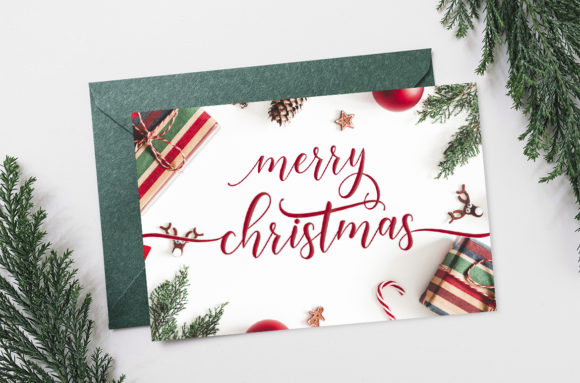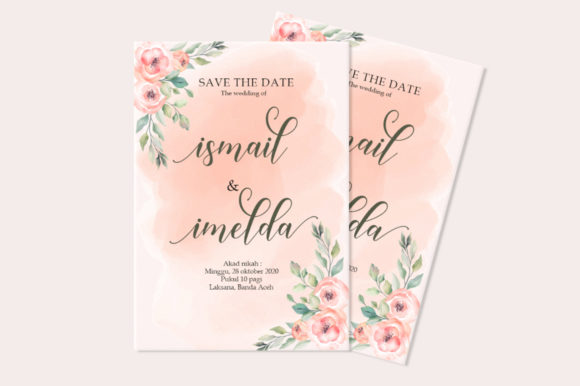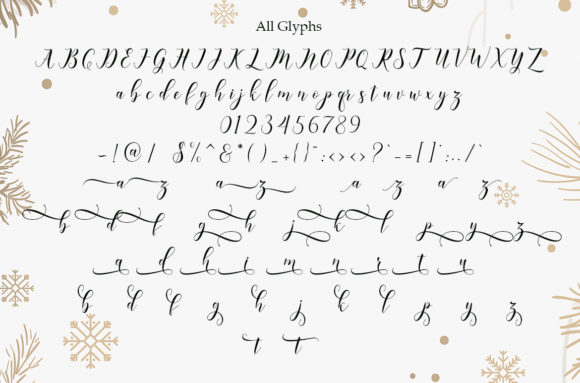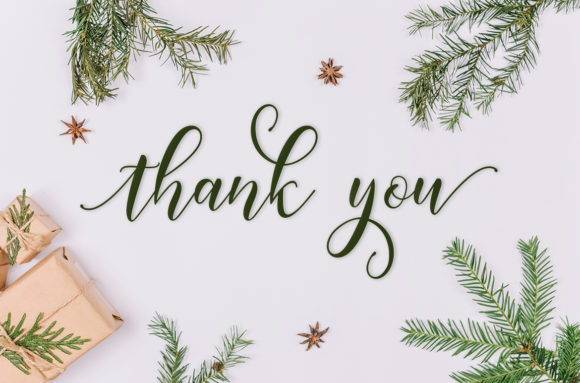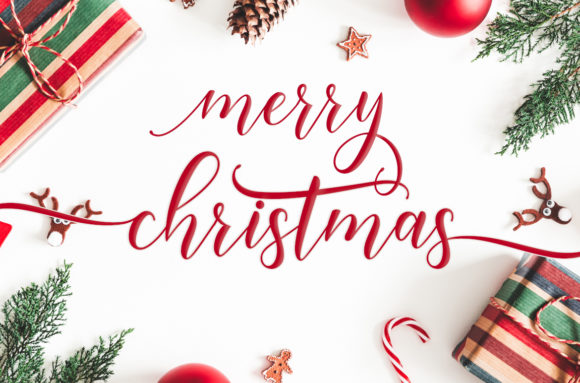
Deck the Halls with Holiday Cheer: Introducing the Happy Christmas Script Font
As the holiday season approaches, designers are bursting with creative ideas to spread joy and festive cheer. It’s that magical moment when you envision the perfect design, but something’s missing – a dash of holiday magic. That’s where the Happy Christmas Script Font comes in, a delightful addition to any design project.
This enchanting script font is designed specifically for all things Christmas, infusing your designs with a warm, inviting feel that’s sure to captivate your audience. Whether you’re creating festive cards, gift tags, or social media graphics, the Happy Christmas Script Font is the perfect tool to add a touch of holiday whimsy.
Happy Christmas Script Font Key Features
- Font Family: A beautiful, elegant script font perfect for festive designs and messages.
- Unique Characteristics: The font features intricate, hand-drawn letterforms, swashes, and flourishes, adding a touch of whimsy and sophistication to designs.
Designer Review: “Happy Christmas Script Font”
Overall, I’m quite pleased with the “Happy Christmas Script Font”. Here are a few things that work well:
- ✨ The font’s cursive nature makes it perfect for festive holiday projects. It adds a touch of warmth and personality.
- ✨ The font’s versatility allows it to work well in both digital and print projects, from social media graphics to holiday cards.
- ✨ The font’s high-quality design ensures that it looks crisp and clear, even at larger sizes.
- ⚠️ The font may not be as effective for more formal or professional projects, as its casual nature may come across as unprofessional.
- ⚠️ The font’s design may not be as unique or distinctive as some other script fonts on the market.
Overall, I think the “Happy Christmas Script Font” is a great choice for designers looking to add a festive touch to their holiday projects. While it may have some limitations, its high-quality design and versatility make it a solid choice for many applications.
Use Happy Christmas Script Font to add a festive touch to your designs, especially during the holiday season.
Combine it with other festive fonts and graphics for a cohesive look.
Happy Christmas Script Font is perfect for:
Christmas card designs
Holiday social media posts
Gift tags and labels
Wedding invitations and decorations